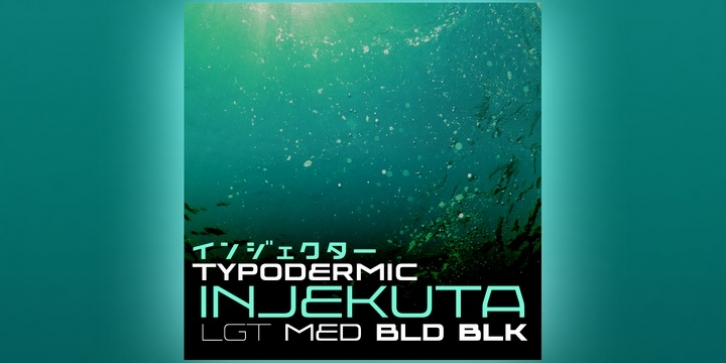
Publisher: Typodermic
In tune with contemporary industrial design, Injekuta’s sleek, technical style will send your headlines, titles and logos decades into the future.